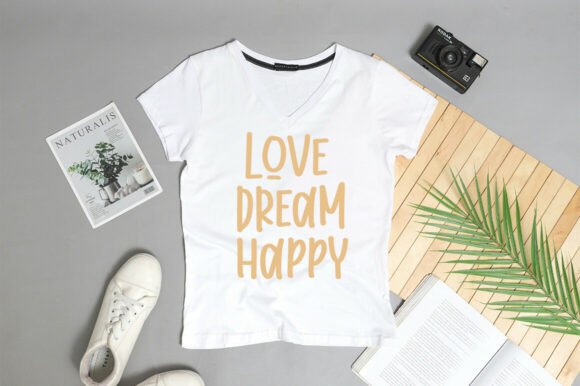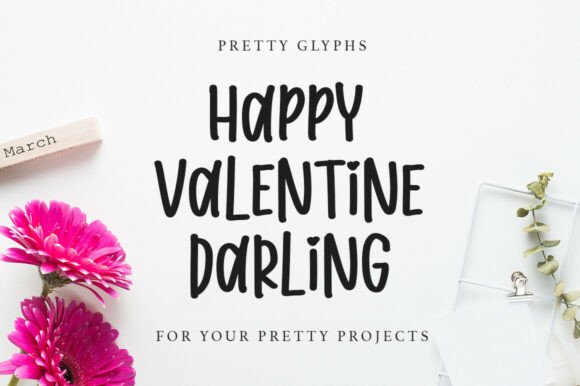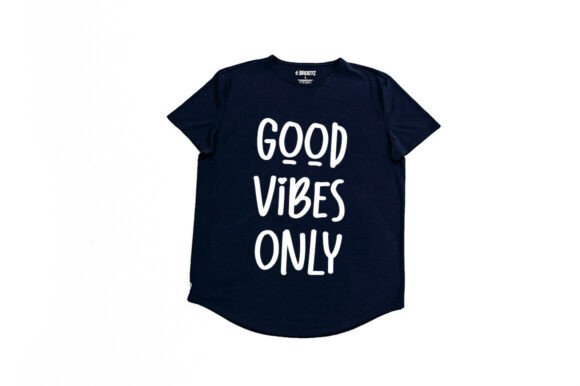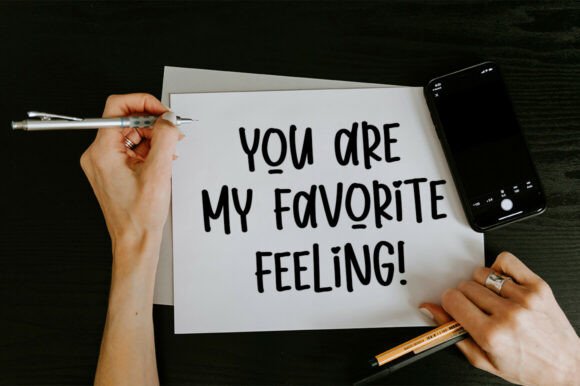
Introduction to Shiny Loves Font
Have you ever stumbled upon a design that just screams “me”?
I’m sure we’ve all had those moments when we come across a design that perfectly captures the essence of our brand or creative project. For me, that moment was when I first laid eyes on Shiny Loves Font. Its vibrant, handwritten brush style effortlessly draws you in, leaving a lasting impression. This font is more than just a design resource – it’s a game-changer. With its high-quality, authentic feel, Shiny Loves Font is the perfect addition to any creative project, whether you’re working on a branding project or crafting engaging social content. And the best part? It’s available for free download, giving you the freedom to experiment and push the boundaries of your creativity.
For designers, Shiny Loves Font offers a unique value proposition. Its transparent background and spirited motion make it an ideal choice for anyone looking to add a touch of personality to their designs. With Shiny Loves Font, you can create designs that truly stand out from the crowd and leave a lasting impact on your audience.
Key Features of Shiny Loves Font
- High-quality, vector-based design resource available for free download, ideal for creative projects that require a unique touch.
- Includes a transparent background, allowing for seamless integration into various design elements and backgrounds.
- Features a clean and modern design, making it perfect for a wide range of creative projects, from logos to typography-based designs.
- Designed to be highly legible, with a unique aesthetic that sets it apart from other fonts in its class.
Honest Review: Shiny Loves Font
As a designer, I’m always on the lookout for high-quality design resources that can elevate my creative projects. Recently, I had the chance to try out Shiny Loves Font, and I’m excited to share my honest review with you.
- ✨ The font has a clean and modern aesthetic that’s perfect for a variety of design projects.
- ✨ The font is highly customizable, allowing for seamless integration into your design workflow.
- ⚠️ The font only comes in a single weight, which may limit its use in certain design scenarios.
- ⚠️ The transparent background option can be a bit tricky to work with, requiring some extra design effort.
Overall, I’d say Shiny Loves Font is a solid choice for designers looking for a high-quality, free font download. While it may have some limitations, its clean aesthetic and customizability make it a great addition to any design resource library.
Shiny Loves Font
Tips for Getting the Most Out of Shiny Loves Font
Experiment with different font sizes and styles to create a visually appealing design. You can also pair Shiny Loves Font with other fonts to create a unique typography.
Shiny Loves Font is ideal for creative projects such as logos, branding materials, and marketing materials. Its unique style and high quality make it a great choice for designers and artists looking to add a touch of elegance to their work.
When to use: Wedding invitations, luxury branding, and high-end packaging. Compared to Shiny Loves Font, Great Vibes Font has a more polished and sophisticated feel.
Pacifico Font is a modern script font that exudes a sense of relaxation and tranquility. It’s perfect for design resources that require a calming and soothing atmosphere. Pacifico Font is a great alternative to Shiny Loves Font when you need a more laid-back and beachy vibe.